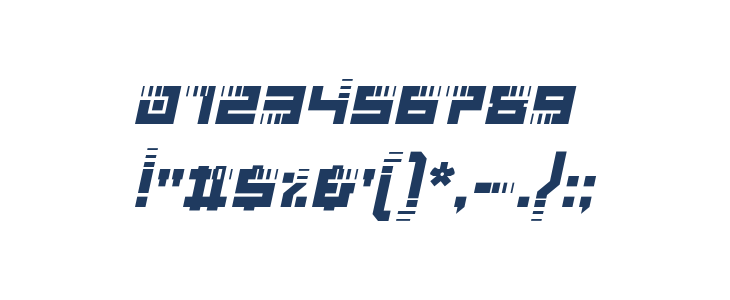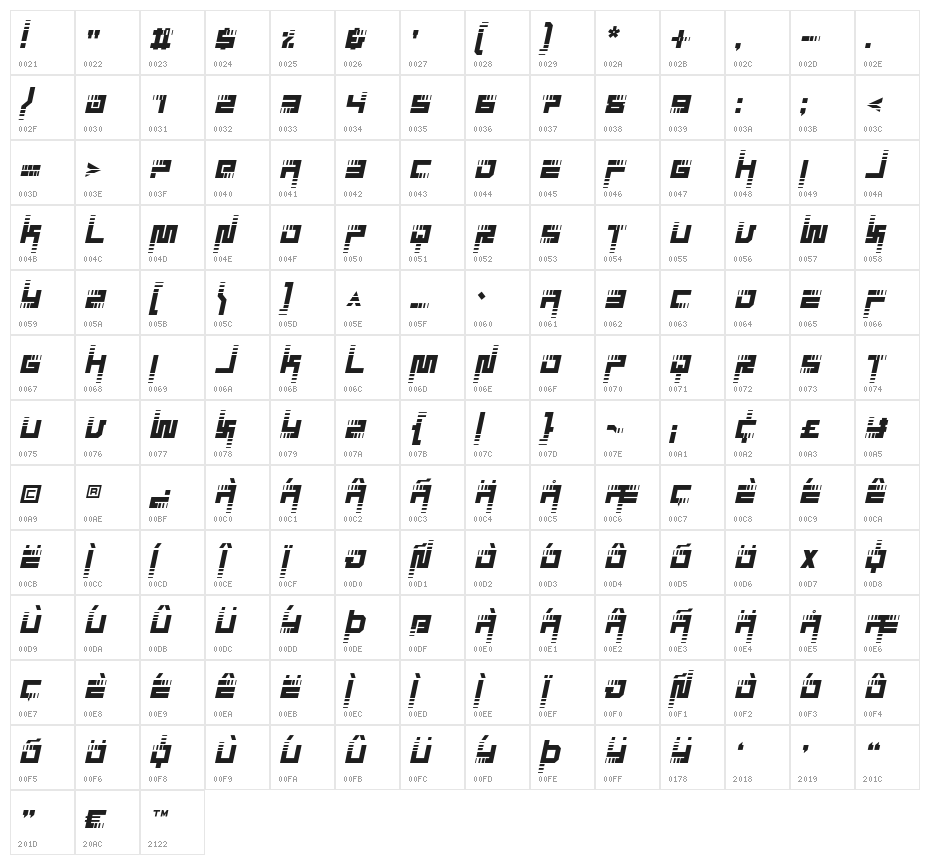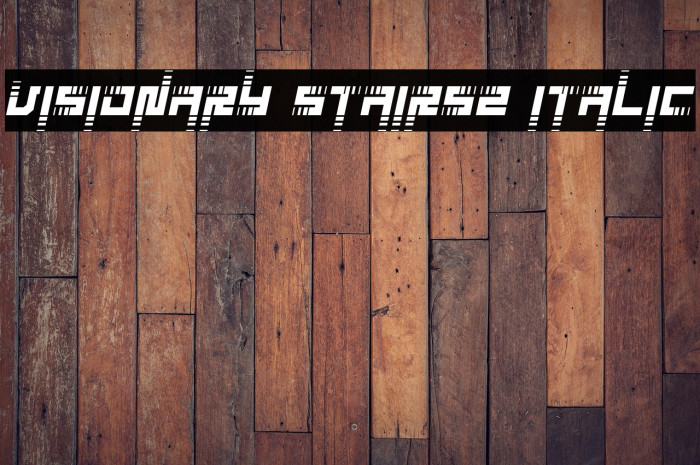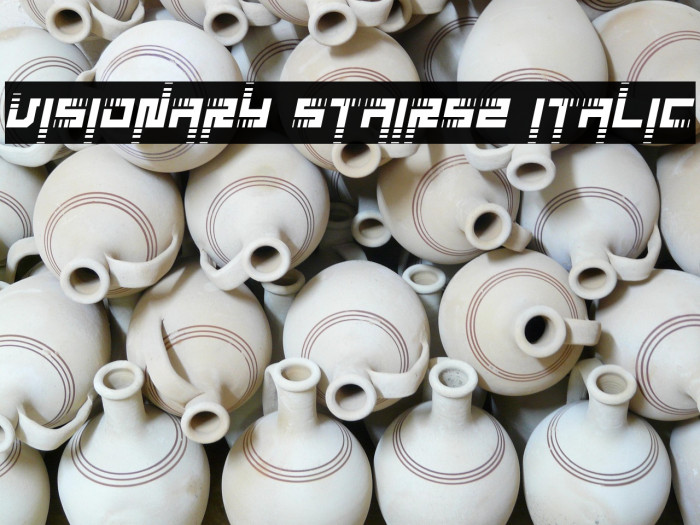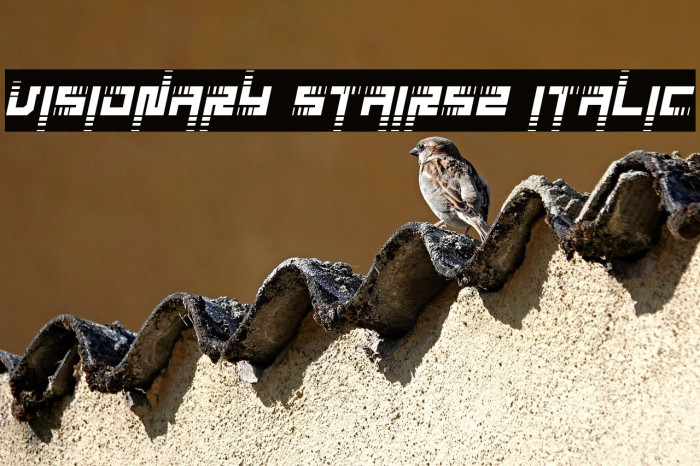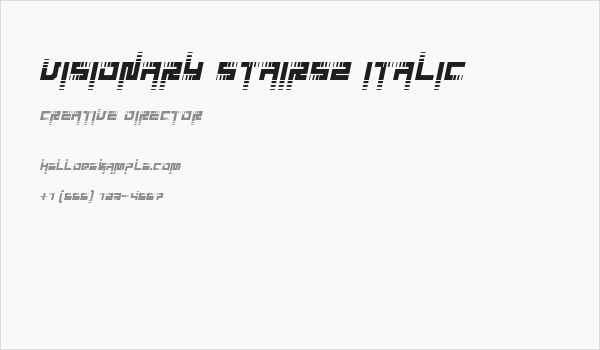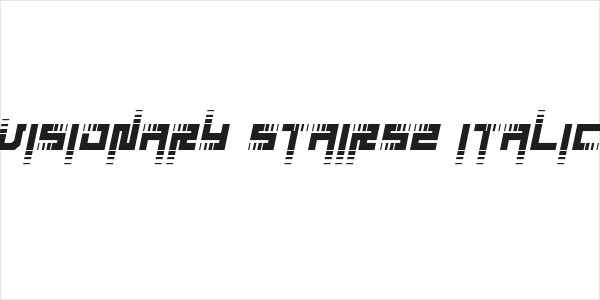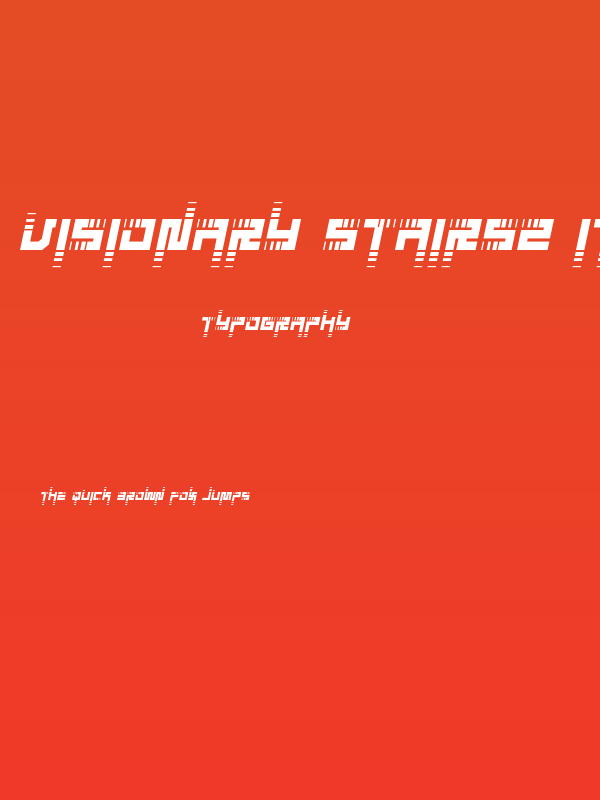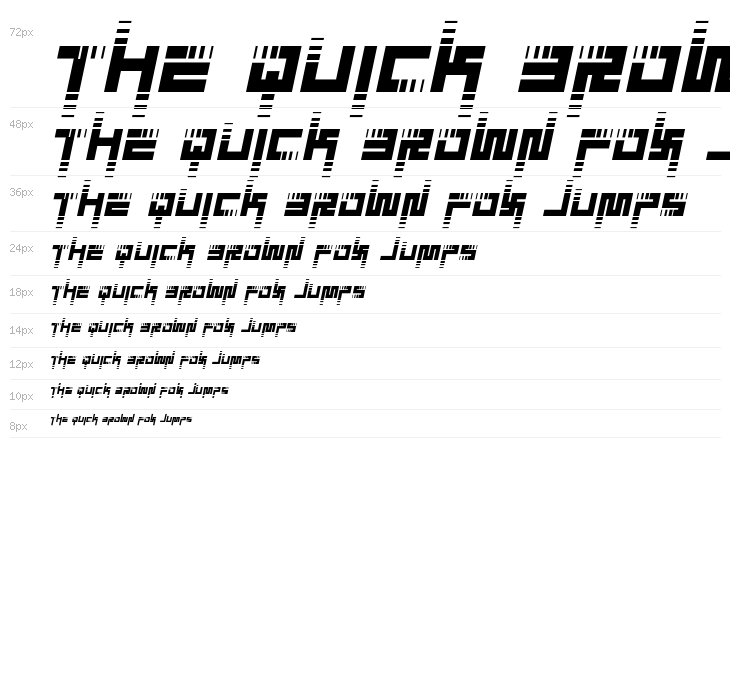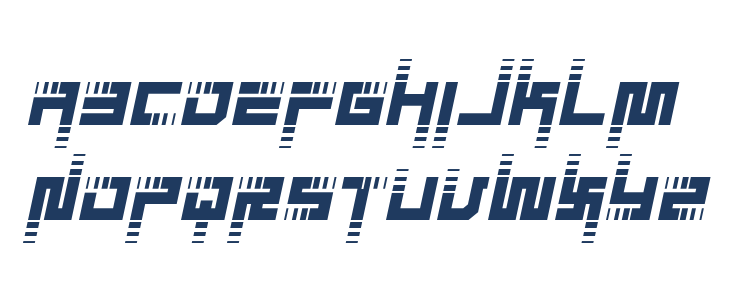
Visionary Stairs2 Italic Font
Visionary Stairs2 Italic Description
This font features a futuristic and dynamic design with a distinct italic slant. Each character is composed of bold, geometric shapes, enhanced by a series of parallel lines that create a sense of movement and speed. The uppercase and lowercase letters maintain a consistent style, with sharp angles and a blocky appearance. Numbers and special characters follow the same design principles, ensuring uniformity across all glyphs. The font's unique aesthetic makes it stand out, ideal for projects that require a modern and edgy look.